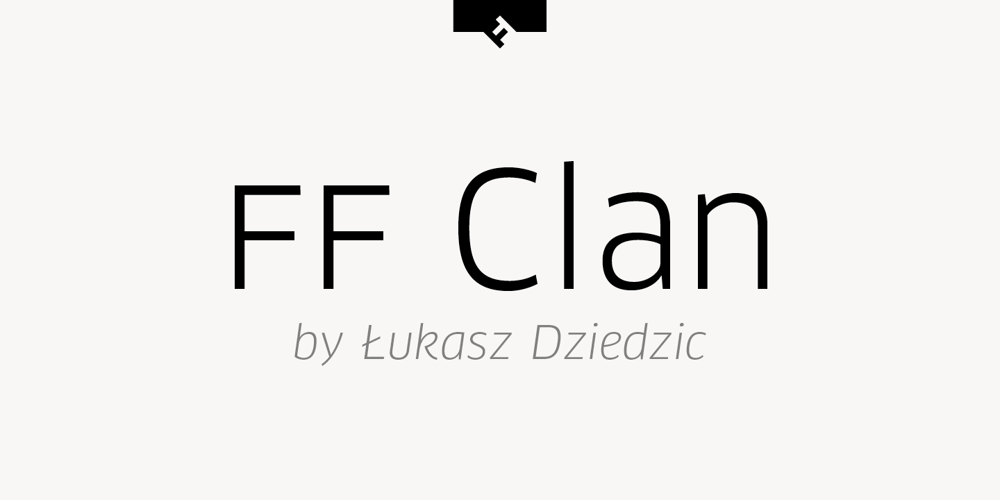
FF Clan Font Family was designed by Łukasz Dziedzic and published by FontFont. FF Clan contains 84 styles and family package options. Polish type designer Lukasz Dziedzic created this sans FontFont between 2006 and 2008. The family has 84 weights, ranging from Thin to Ultra in Compressed, Condensed, Narrow, Medium, Wide, and Extended (including italics) and is ideally suited for advertising and packaging, editorial and publishing, logo, branding and creative industries, poster and billboards, small text, wayfinding and signage as well as web and screen design. FF Clan provides advanced typographical support with features such as ligatures, small capitals, case-sensitive forms, fractions, super- and subscript characters, and stylistic alternates. It comes with a complete range of figure set options – oldstyle and lining figures, each in tabular and proportional widths.